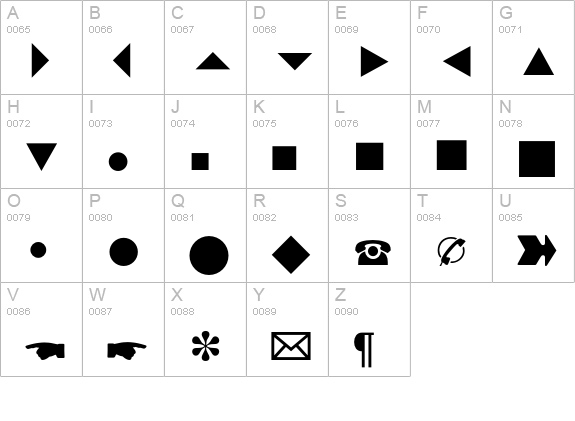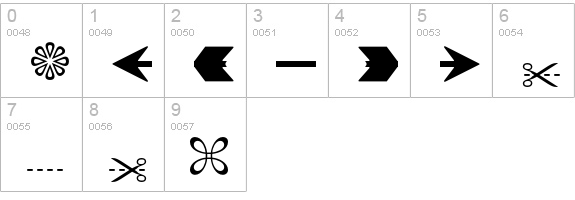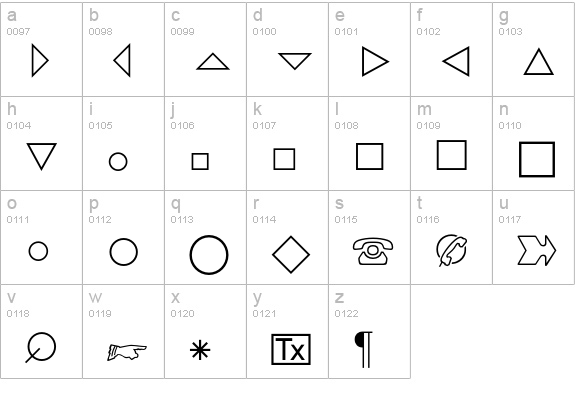
European Pi 3 Font Details
European Pi 3 font is a stunning typeface that captures the essence of classic European style with a modern twist. This elegant font features intricate details and delicate curves that make it perfect for a wide range of design projects. Whether you're creating invitations, branding materials, or signage, European Pi 3 font will add a touch of sophistication to your work. What sets European Pi 3 font apart is that it is completely free to download at FontsMarket.com. This means you can easily access this exquisite font and use it in your projects without any cost. With its timeless design and versatility, European Pi 3 font is a must-have for any designer looking to elevate their creations. Download it today and start adding a touch of European elegance to your designs.